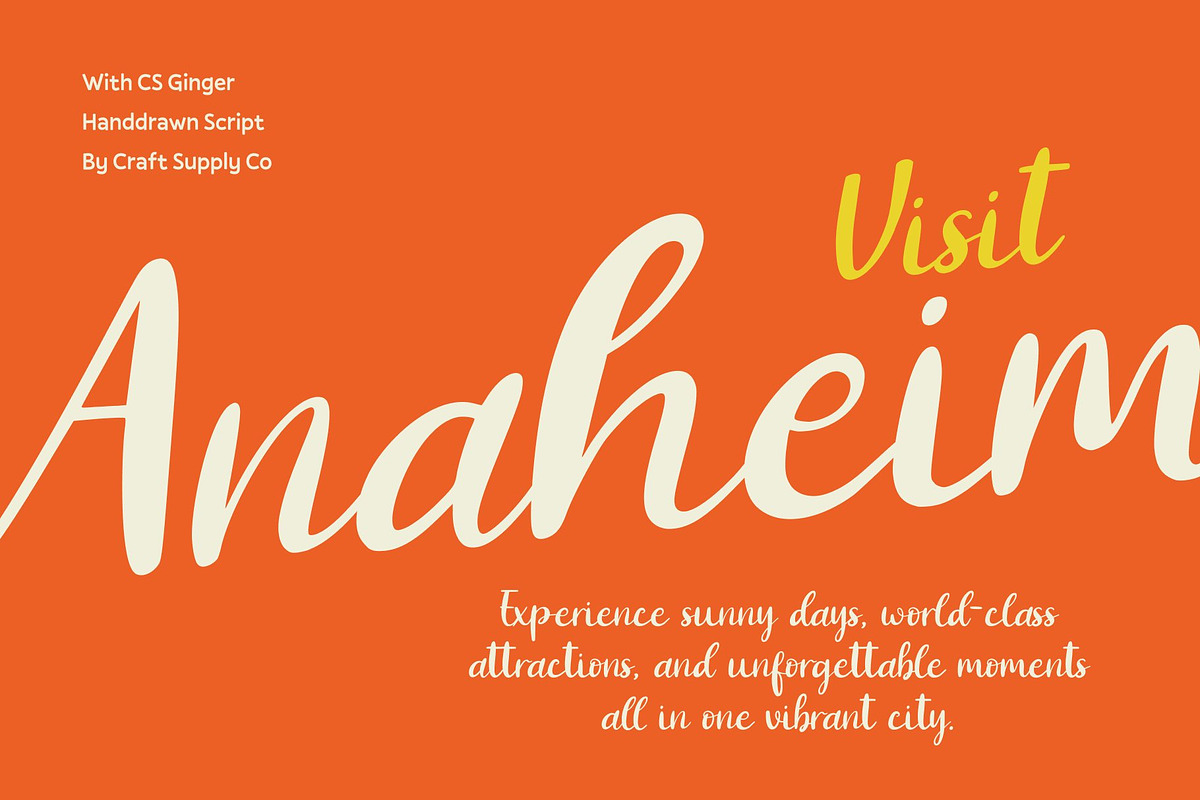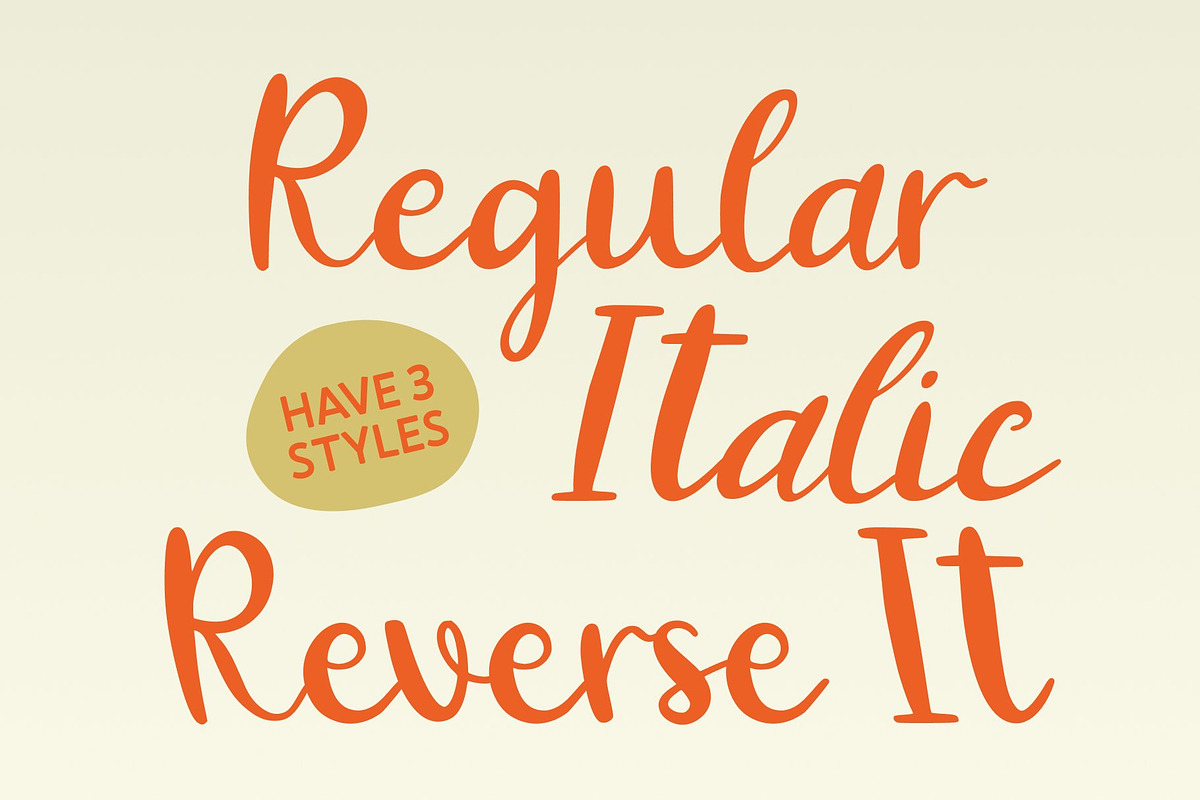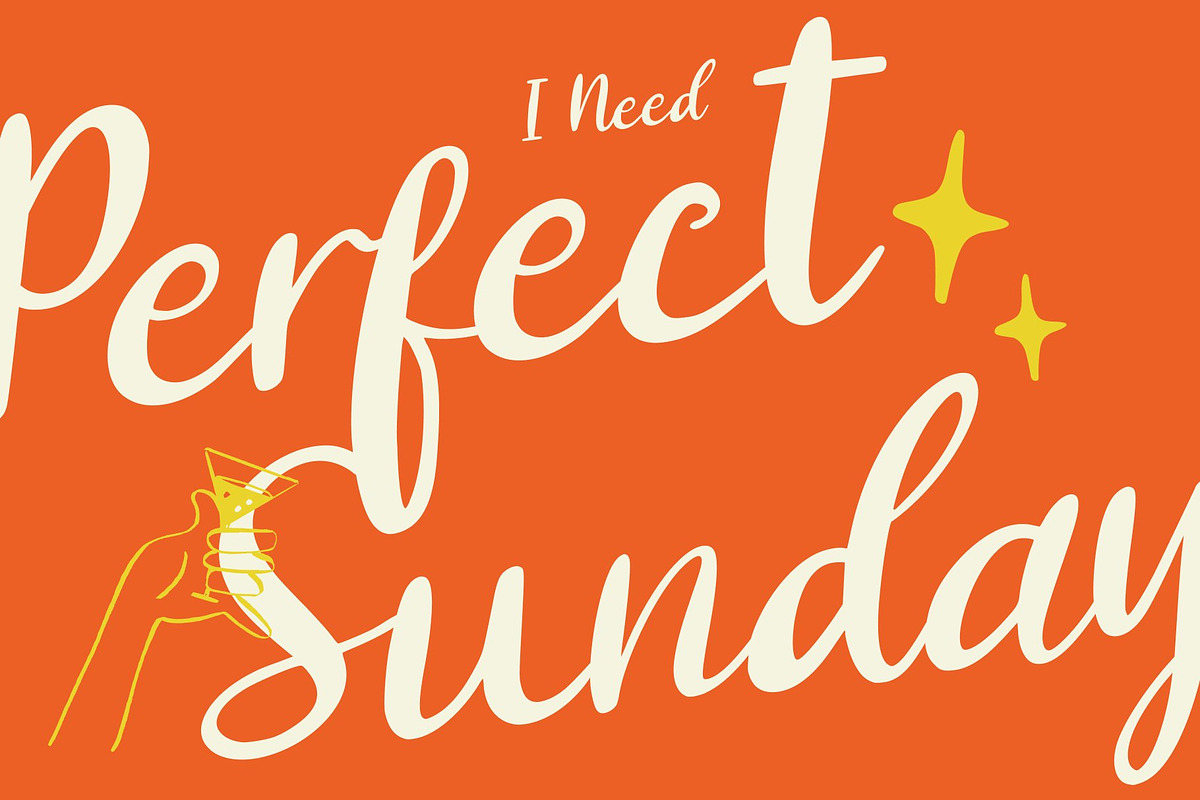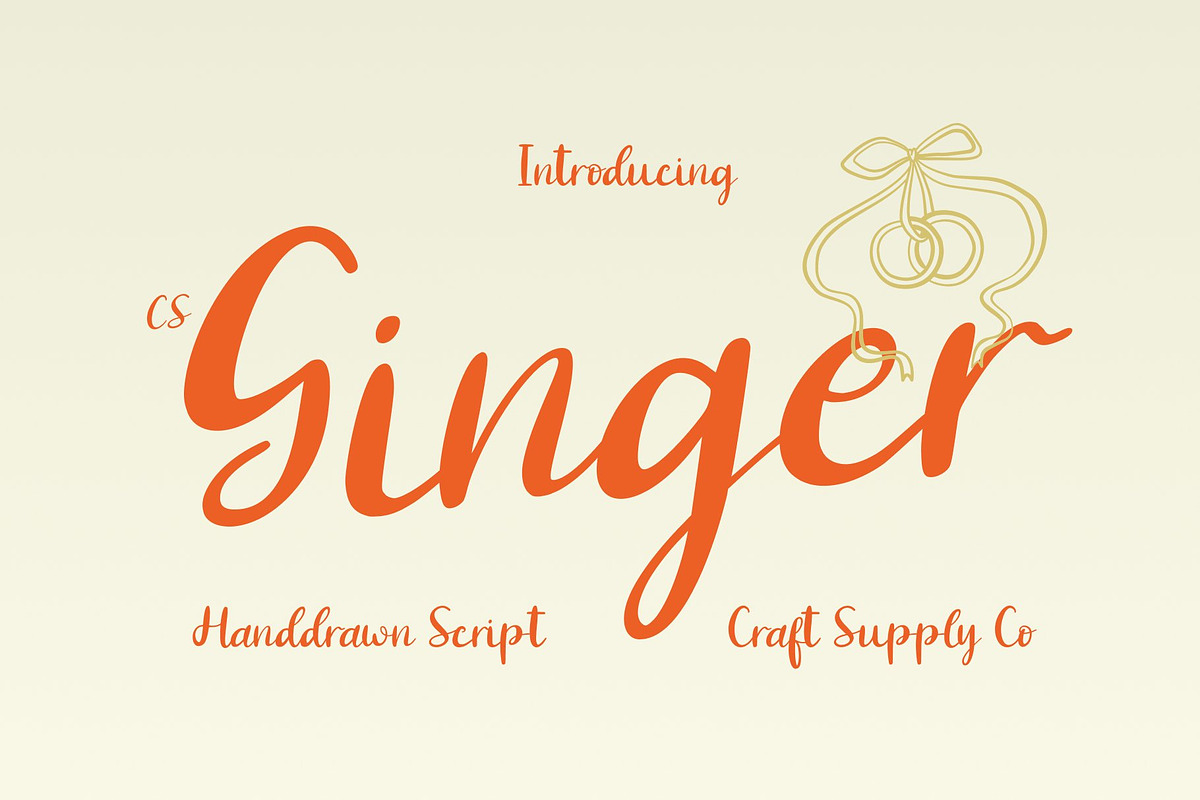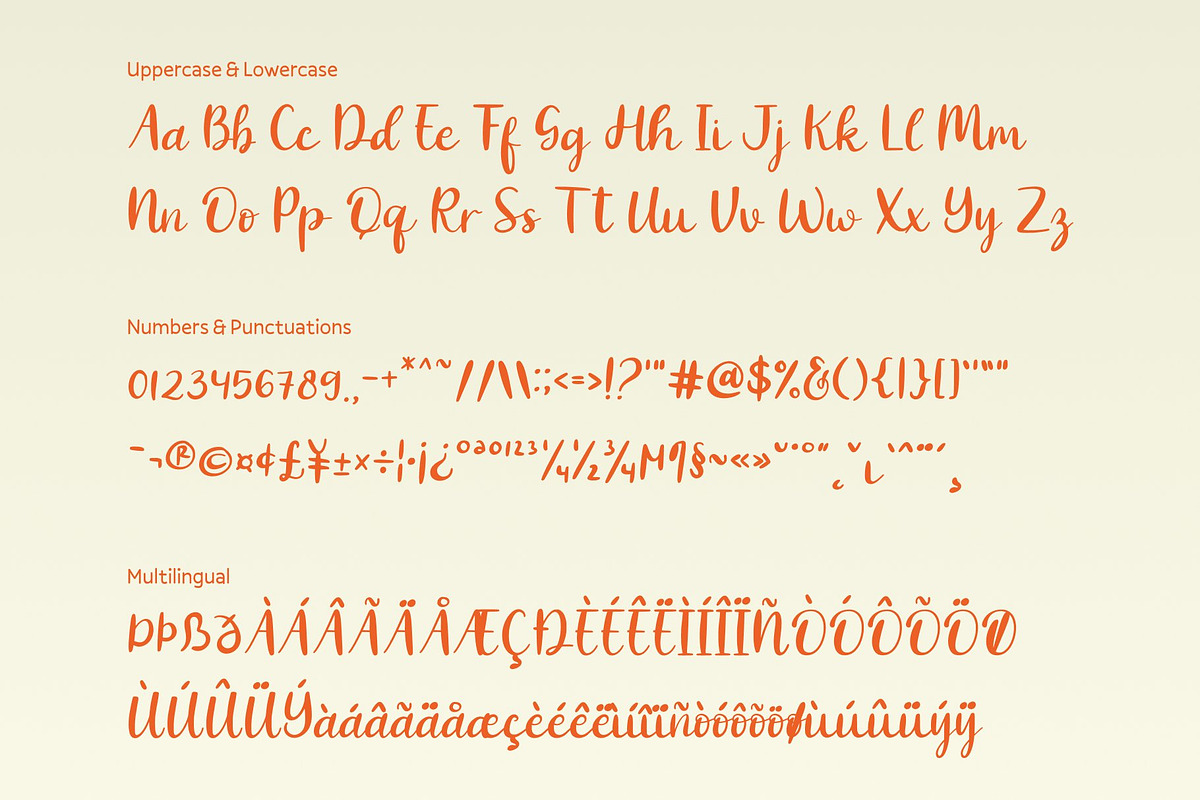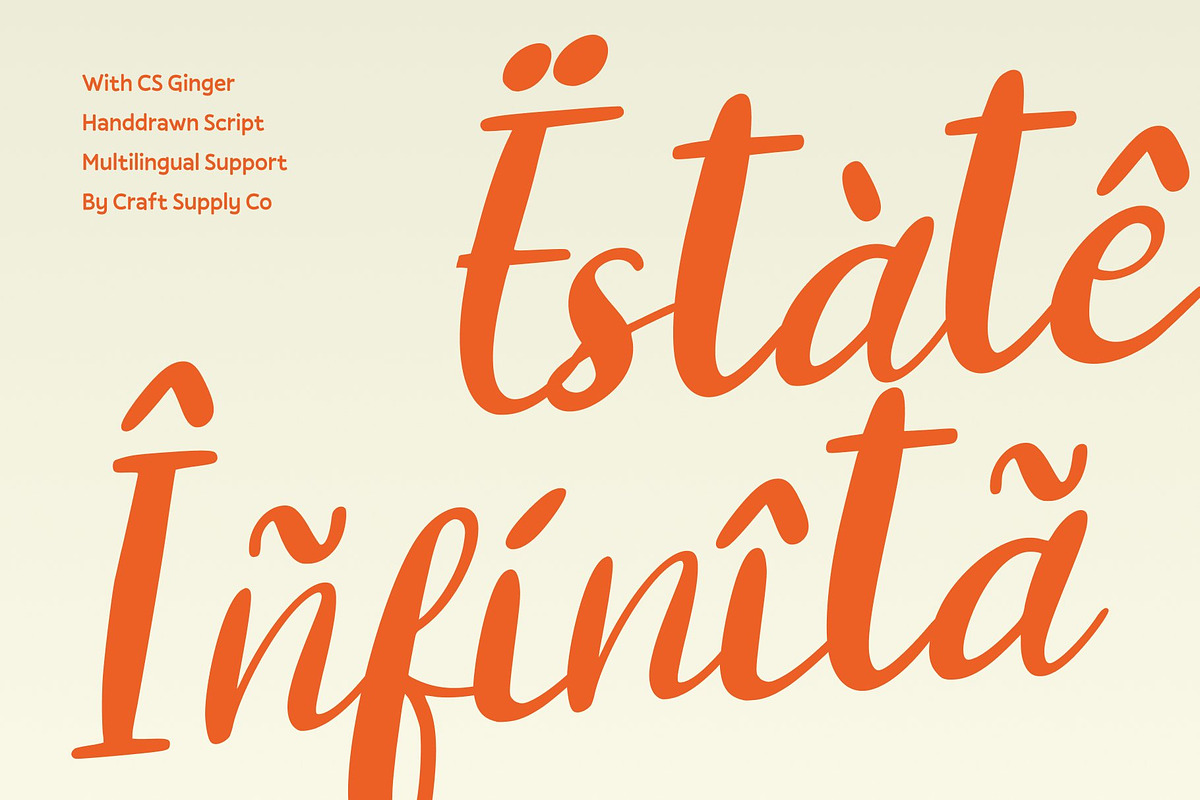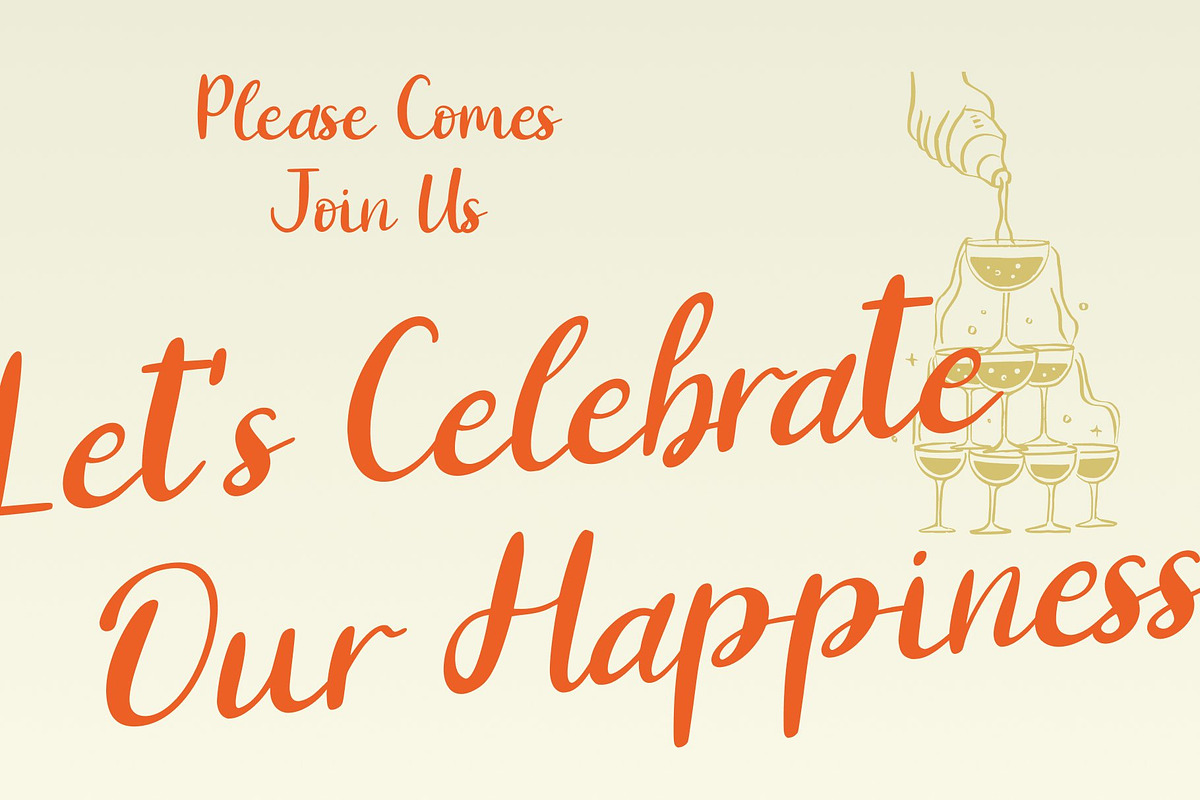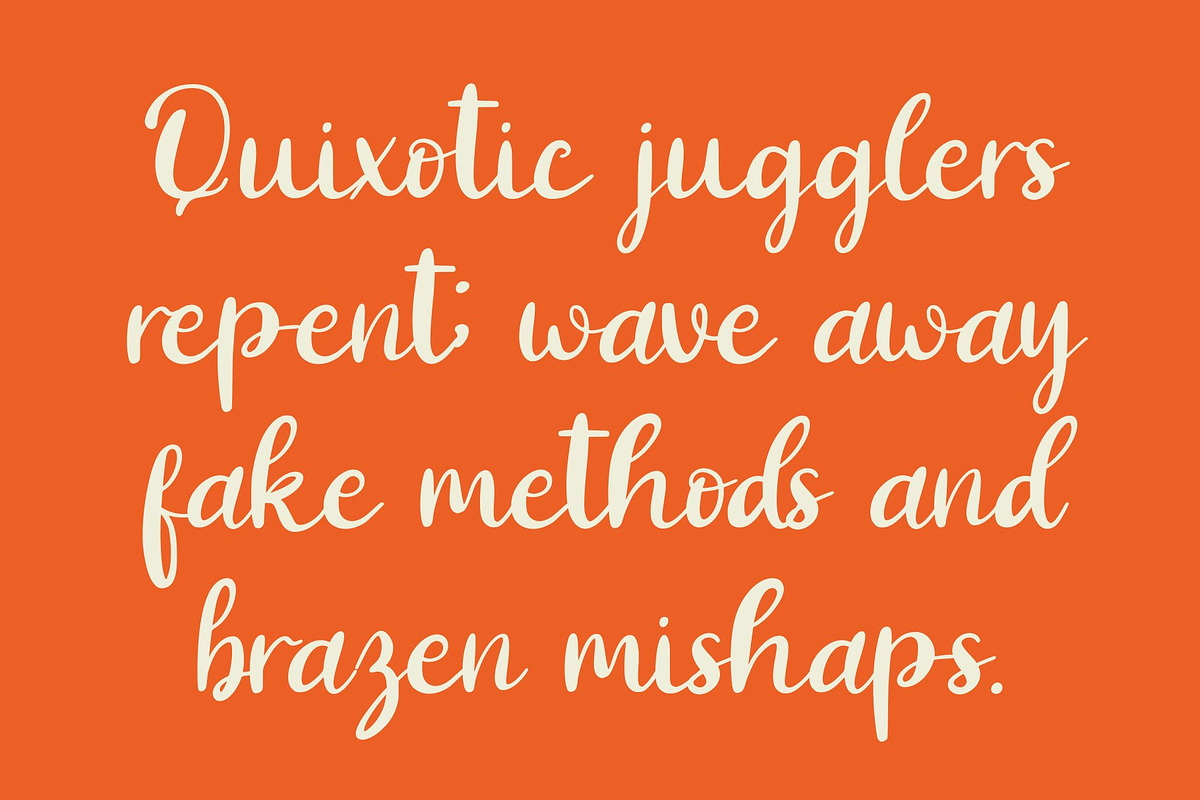
CS Ginger – Handwritten Script
CS Ginger – Sunny Mediterranean Charm with Coastal Warmth
Mediterranean Script Font with Relaxed Character This is a Mediterranean script font designed to capture the warmth, brightness, and relaxed rhythm of coastal life. Inspired by sunlit shores, gentle sea breezes, and carefree summer days, this font delivers a friendly and inviting handwritten style. Its flowing strokes and natural movement create a sense of ease and authenticity.
Soft Curves with Sunny Personality The letterforms of feature smooth curves and balanced connections that reflect a laid-back Mediterranean atmosphere. Each character flows naturally, creating a harmonious rhythm that feels warm and approachable. This sunny personality brings a sense of joy and optimism to any composition, allowing the font to communicate comfort, travel spirit, and coastal beauty without feeling overly formal or rigid.
Relaxed Style for Expressive Storytelling This font’s relaxed script style makes it ideal for expressive and lifestyle-focused storytelling. The font carries a casual elegance that works beautifully in designs that celebrate nature, culture, and personal experiences. Its handwritten charm adds a human touch, helping designs feel genuine and emotionally engaging.
Perfect for Branding, Posters, and Travel Themes Designed for versatile creative use, this font excels in branding, posters, travel-themed designs, packaging, and social media visuals. Its Mediterranean charm makes it especially suitable for tourism brands, cafés, summer events, beachwear labels, and destination promotions.